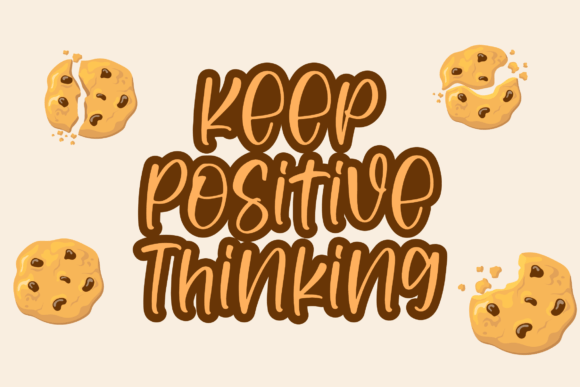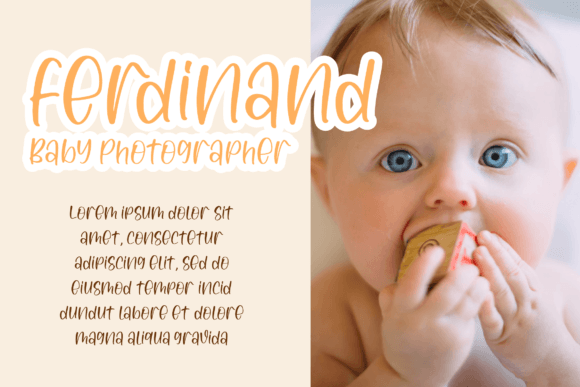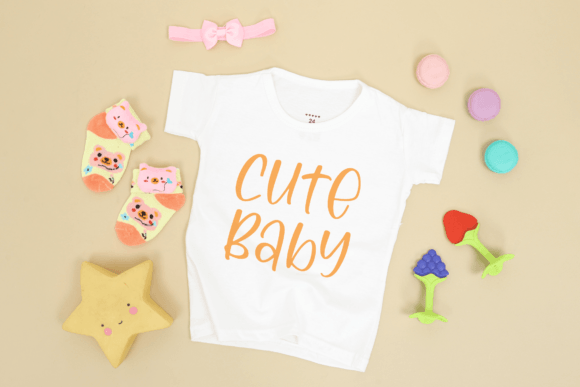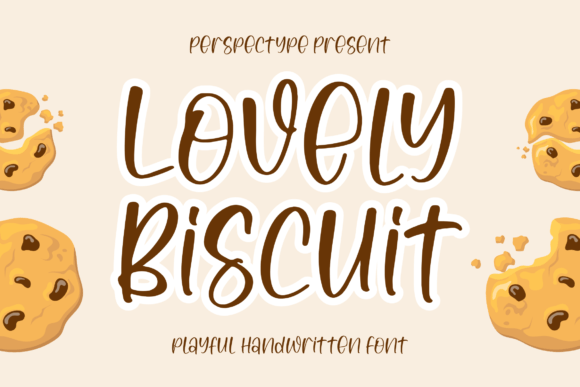
Introduction to Lovely Biscuit Font
Lovely Biscuit feels playfully handmade and delivers an incredibly playful handwritten font.
Use this display font to add that special playful touch to any design idea you can think of Masterfully designed to become a true favorite, this font has the potential to bring each of your creative ideas to the highest level.
Lovely Biscuit Font offers exceptional quality and versatility, making it a valuable addition to your design toolkit. Whether you’re creating for personal projects or commercial use, Lovely Biscuit Font delivers professional results.